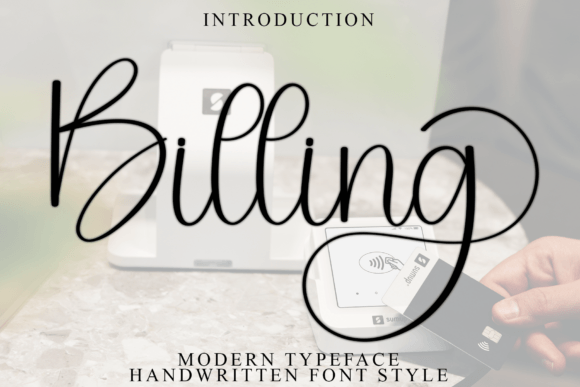
The Elegance of Billing Font: A Designer’s New Best Friend
I still remember the design project that led me to discover the stunning Billing Font. I was working on a wedding invitation suite, and my client had a very specific vision: elegant, sophisticated, and warm. I had spent hours scouring font libraries and testing different combinations, but nothing seemed quite right. That’s when I stumbled upon Billing Font, and it was love at first sight! ✨
An Honest Review of Billing Font
- ✨ Fluid strokes and natural flow create a captivating, sophisticated look
- ✅ Perfect for adding a personal touch to invitations, branding, or social media
- 💫 Brings a sense of warmth and creativity to any design
- 🎨 Highly versatile and pairs well with a variety of design styles
While Billing Font is an amazing addition to any design project, there are a few things to keep in mind: 🤔
- ⚠️ Some users may find the font a bit too ornate for very minimalist designs
- ⚠️ Not ideal for body text or long blocks of content, as it’s best used for headlines or titles
A Practical Guide to Using Billing Font
- Experiment with OpenType features, such as ligatures and stylistic alternates, to add more flair to your design
The Story Behind Billing Font
According to its creators, Billing Font was inspired by the classic calligraphy of 18th-century Europe. The design team spent countless hours perfecting the fluid strokes and natural flow that give Billing Font its distinctive charm. 💫
Q: Is Billing Font suitable for body text?
A: While Billing Font is stunning, it’s best used for headlines or titles. Its ornate nature can make long blocks of text difficult to read. ⚠️
Q: Does Billing Font support OpenType features?
A: Yes, Billing Font supports various OpenType features, including ligatures, stylistic alternates, and glyphs. Experiment with these features to add more depth and character to your designs. 🎨